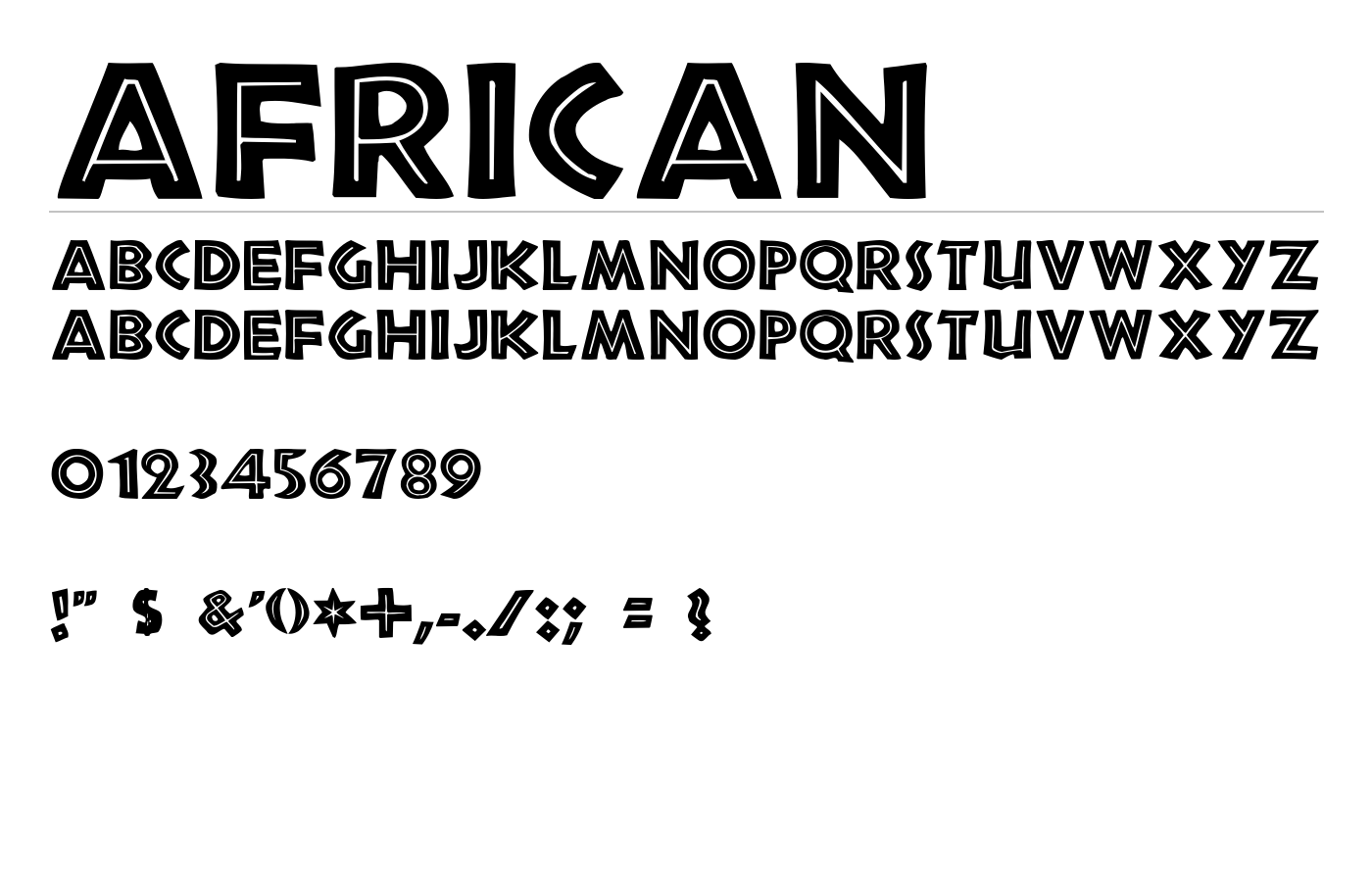
African Font is a bold, playful sans serif typeface characterized by its irregular, hand-drawn style and strong geometric shapes with thick strokes. Its lively letterforms and uneven lines evoke a vibrant, creative spirit, making it perfect for fun, eye-catching headlines, posters, and branding that seeks to convey energy and uniqueness. This font works especially well for projects aiming for an artistic, informal vibe with a touch of cultural flair.
African Font
About African Font